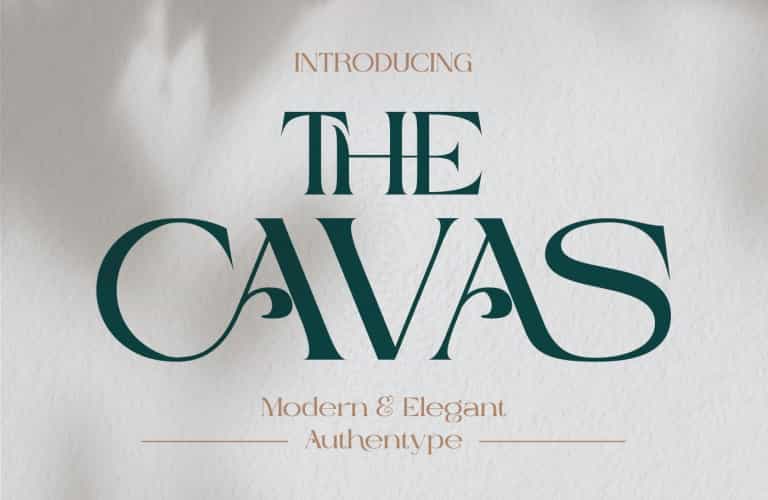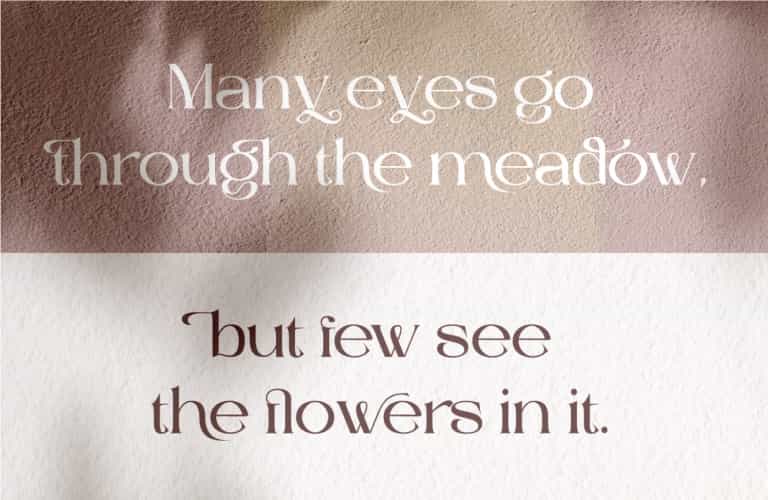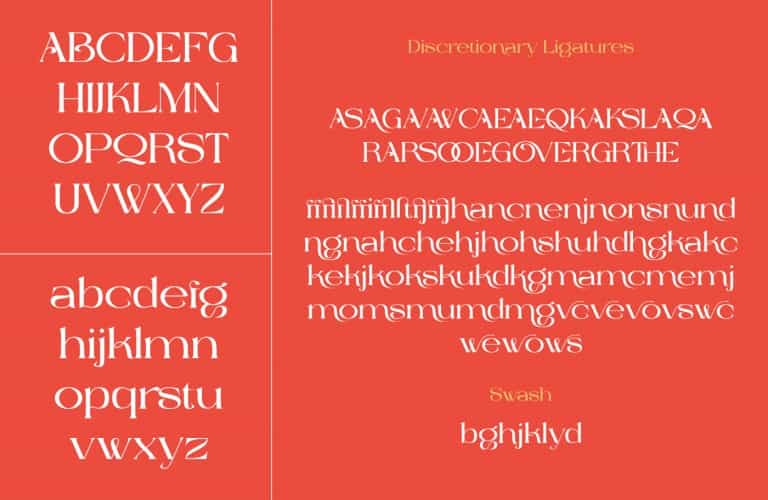
Cavas features an elegant serif font designed for modern use. Featuring ligatures that give each word an individual shape and an elegant, clean and contrasting swash, Cavas is suitable for logos, posters and promotional materials.